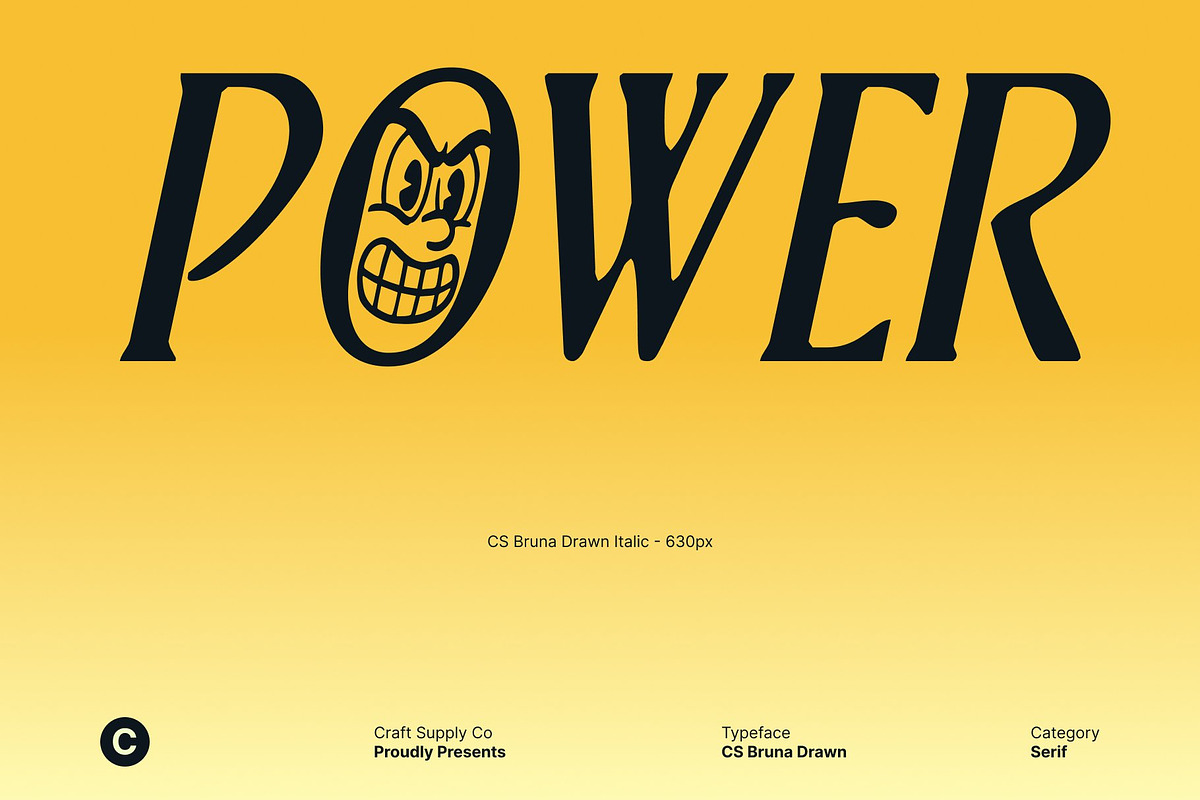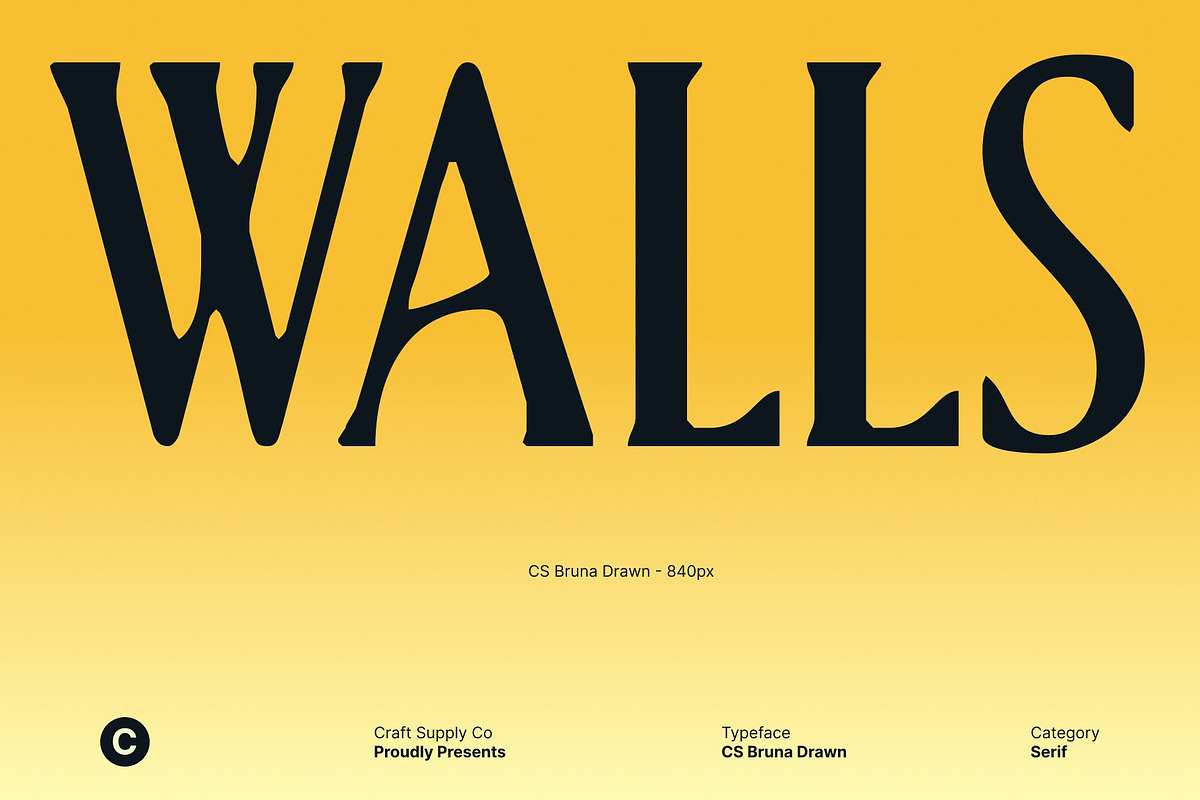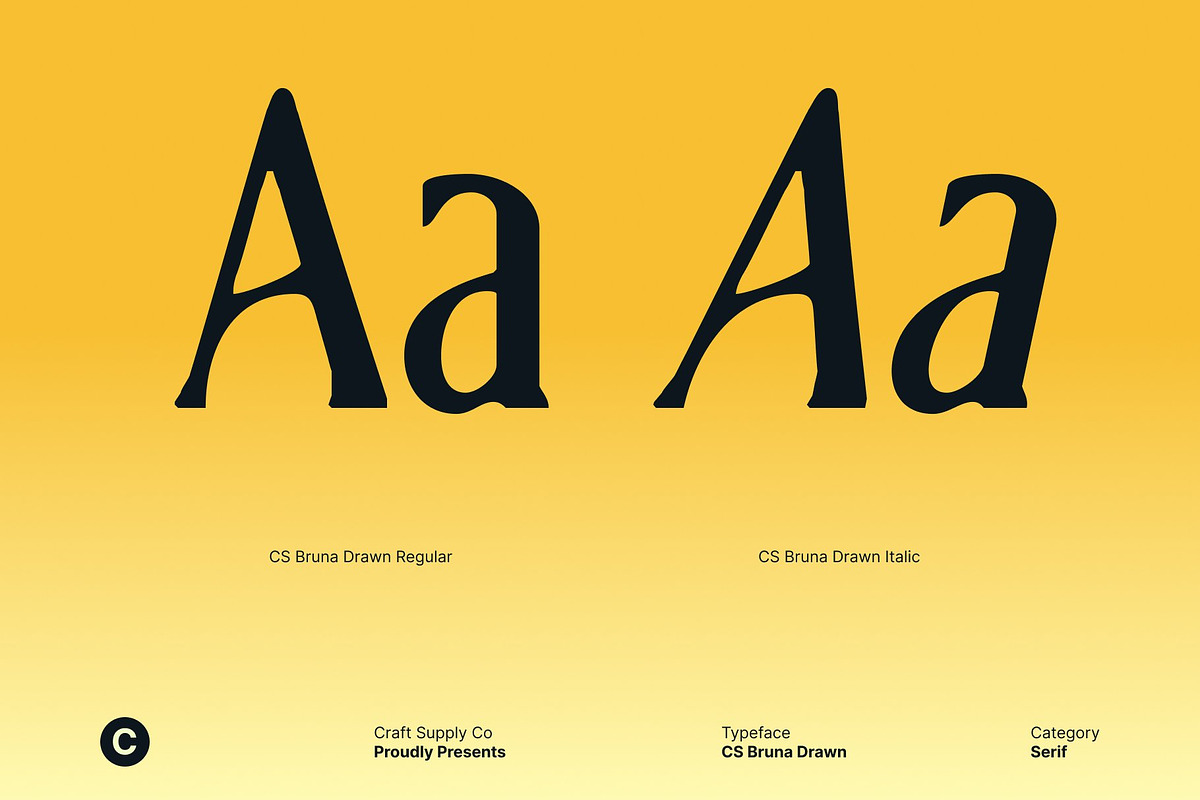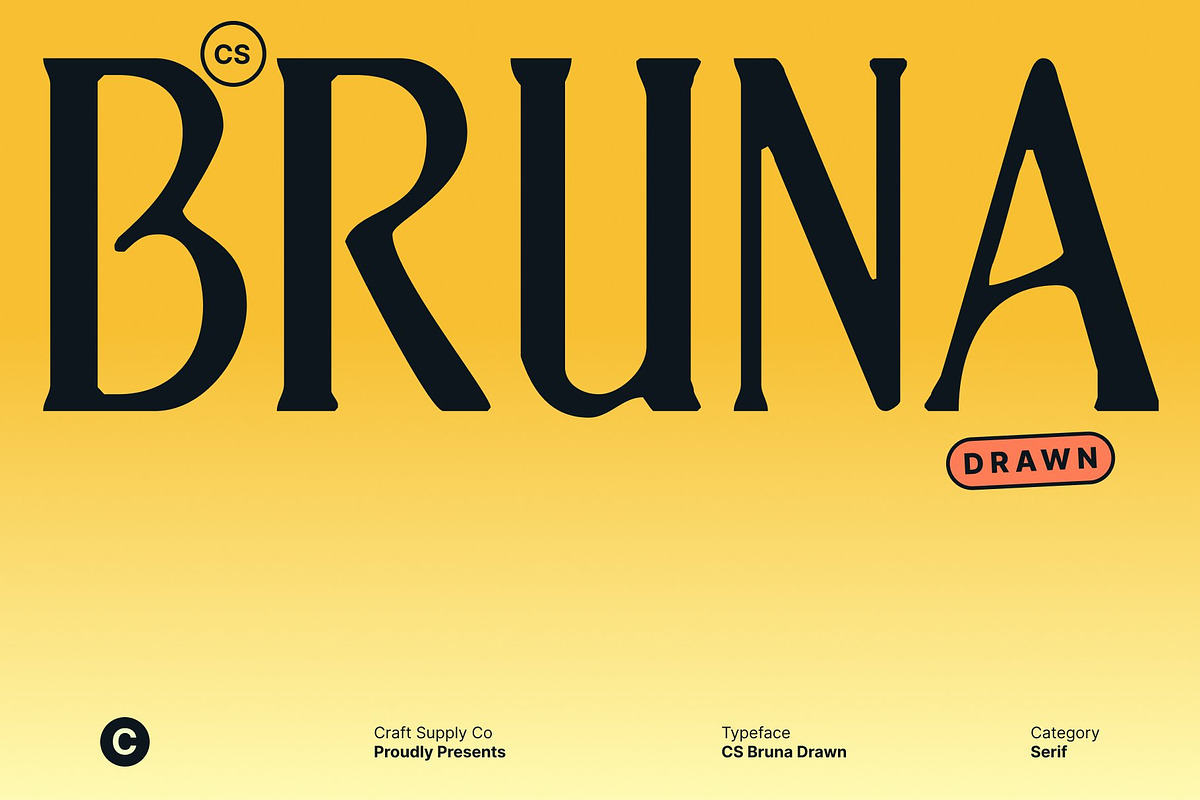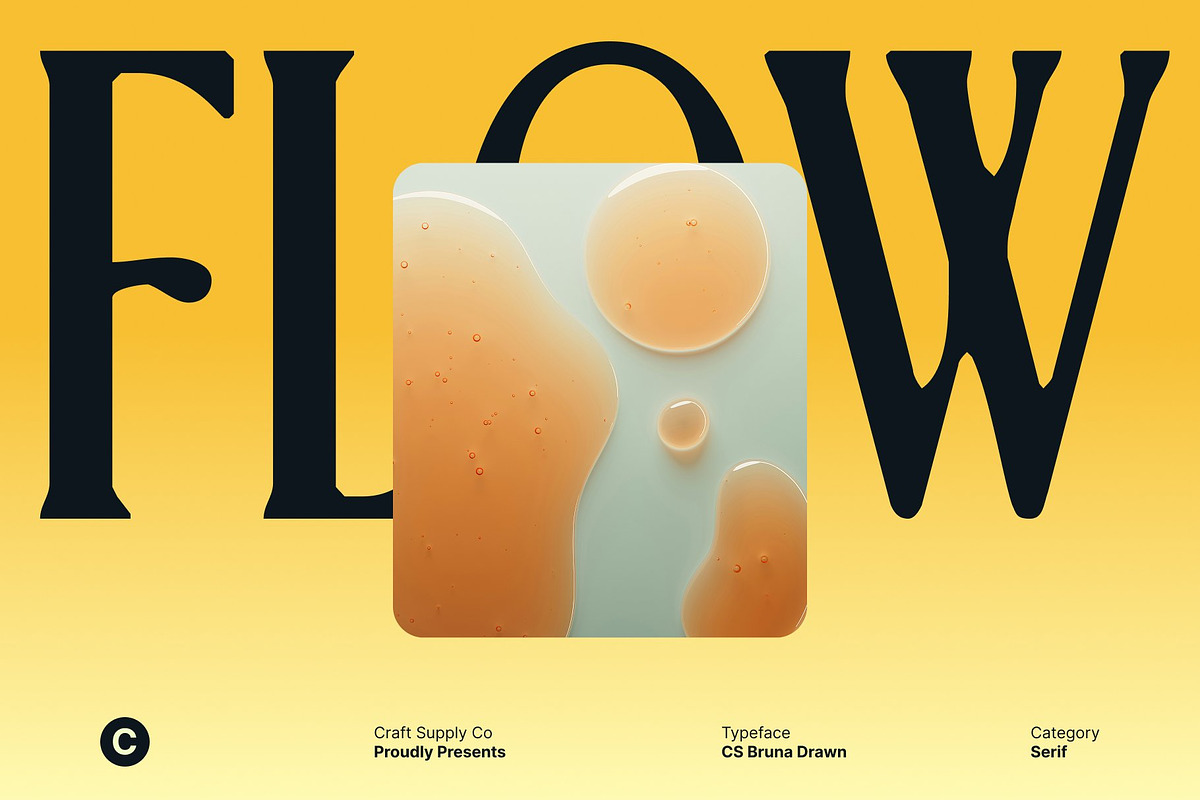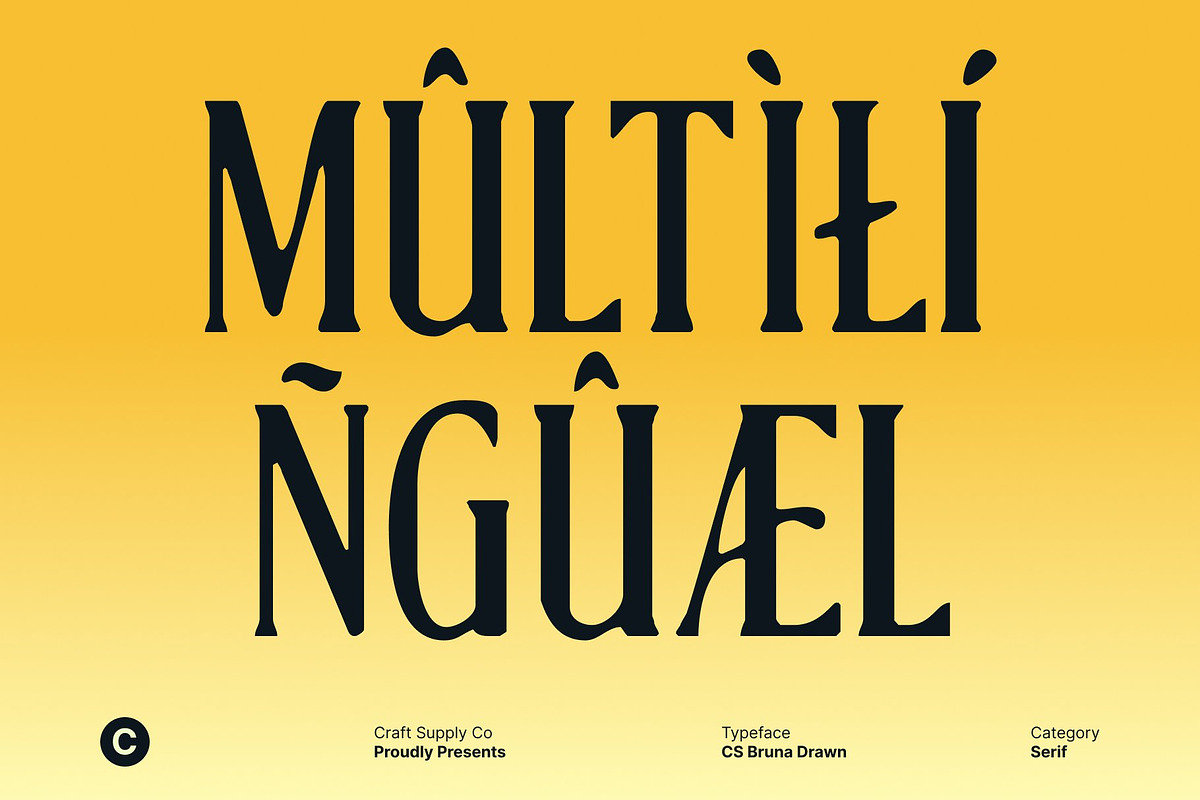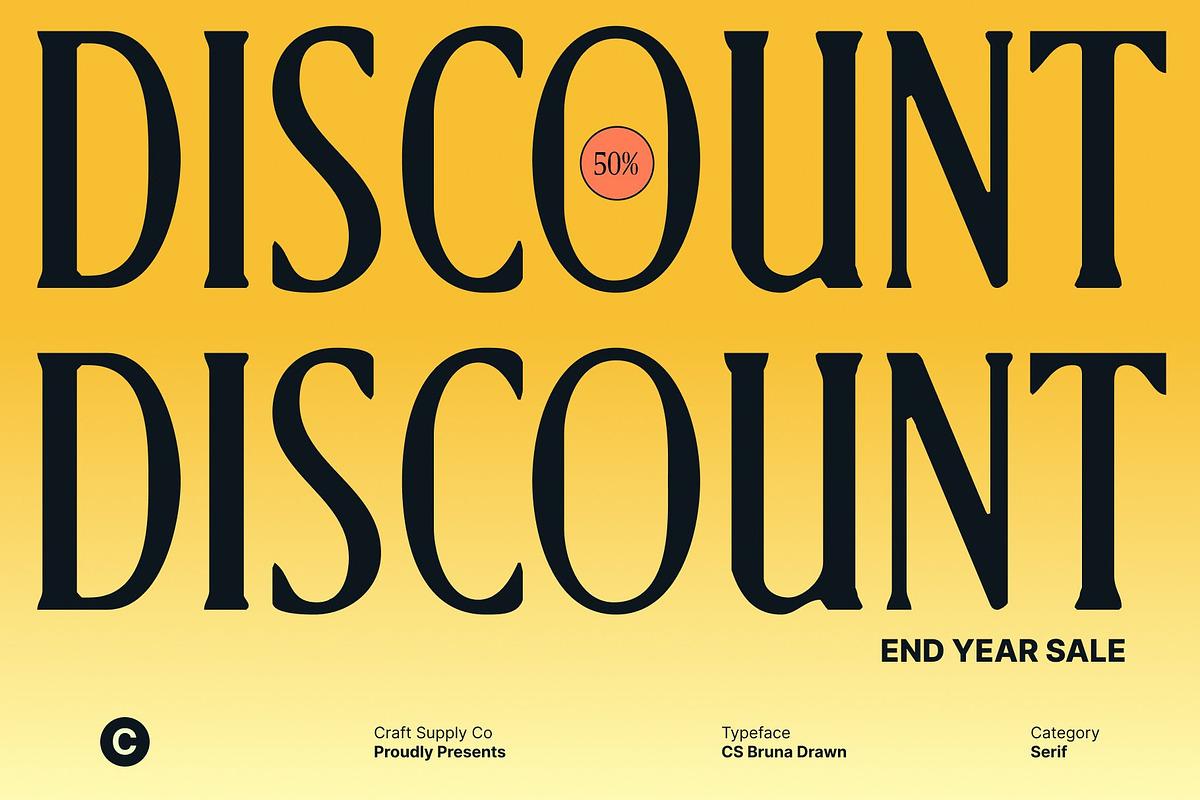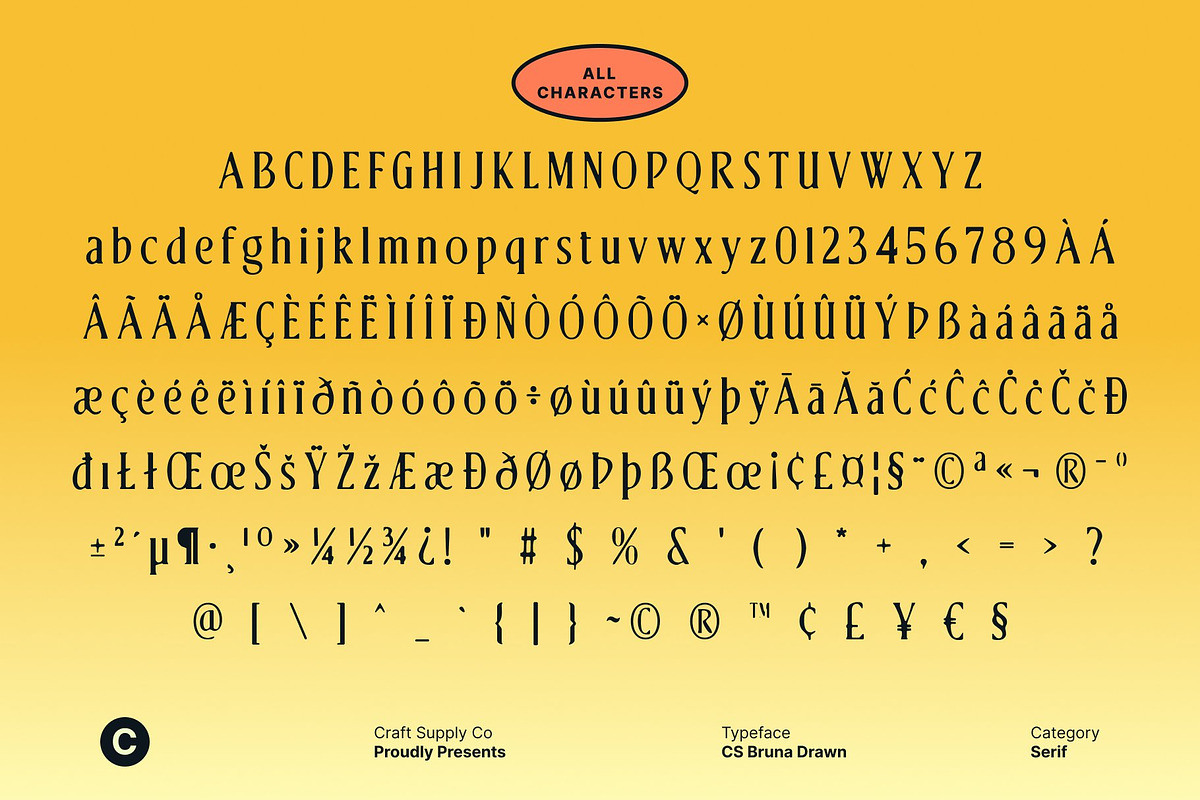
CS Bruna Drawn
CS Bruna Drawn – Contemporary with Refined Simplicity
Serif Font with Modern High-End Character This is an serif font designed to deliver a refined, high-end appearance through sleek lines and balanced proportions. Enhanced with a subtle drawn texture, it softens the precision of classic serif forms, creating a sophisticated silhouette that feels modern, polished, and quietly confident.
Elongated Details with Soft Drawn Character The elongated details give each letter graceful flow and elevated presence, while the drawn finish introduces gentle irregularities that add charm and individuality. Clean strokes remain controlled and refined, yet the hand-drawn texture prevents the font from feeling rigid or mechanical. This balance creates a serif typeface that feels luxurious, expressive, and visually engaging.
Clean Design with Artistic Professional Personality This font maintains a clean and modern look while embracing a more human, artistic quality. The drawn effect adds subtle depth and softness, allowing the font to feel professional without becoming cold or overly formal. Its refined simplicity helps content stand out clearly while still delivering character and visual warmth.
Perfect for Headlines, Branding, and Packaging Designed for versatile premium use, this font is ideal for headlines, branding, posters, packaging, editorials, and marketing materials. Its elegant serif structure combined with a drawn texture makes it especially suitable for modern luxury brands, fashion visuals, beauty packaging, and sophisticated creative projects that value clarity with personality.
- CS Bruna Drawn Regular
- CS Bruna Drawn Italic